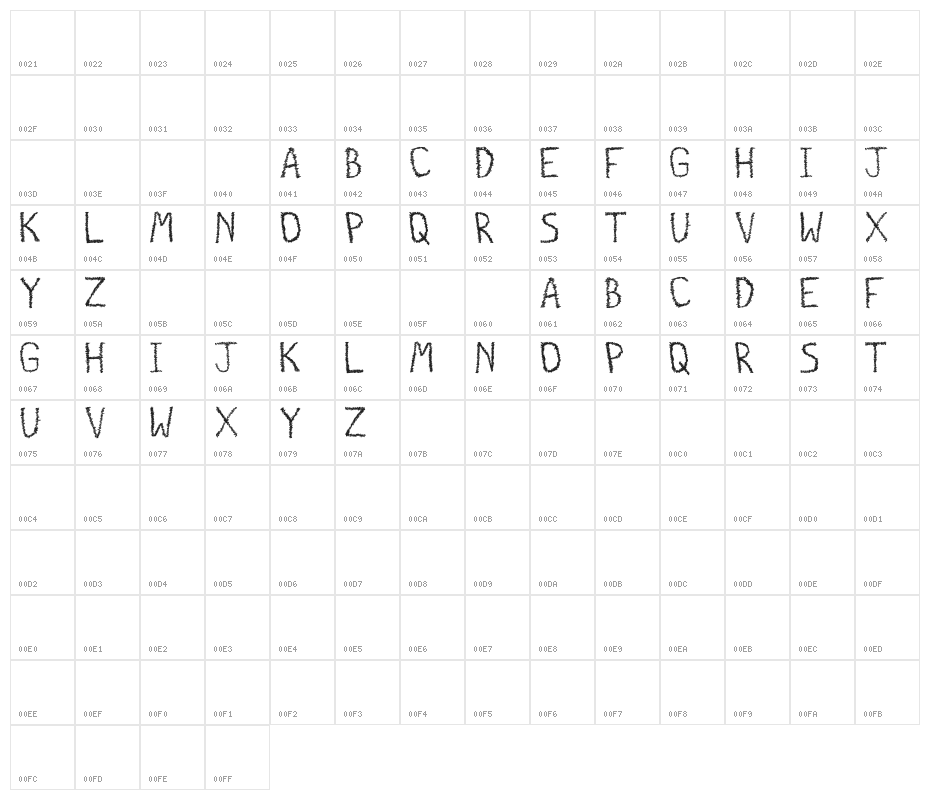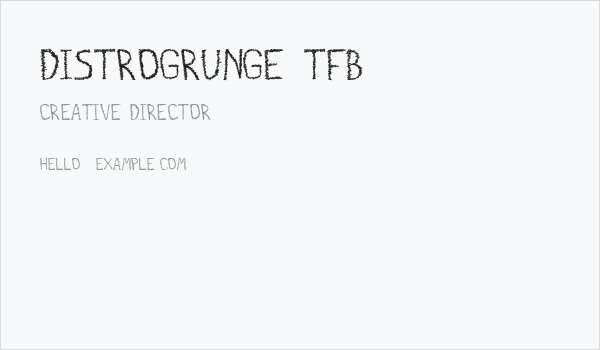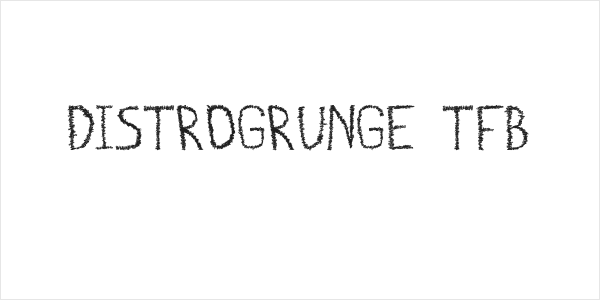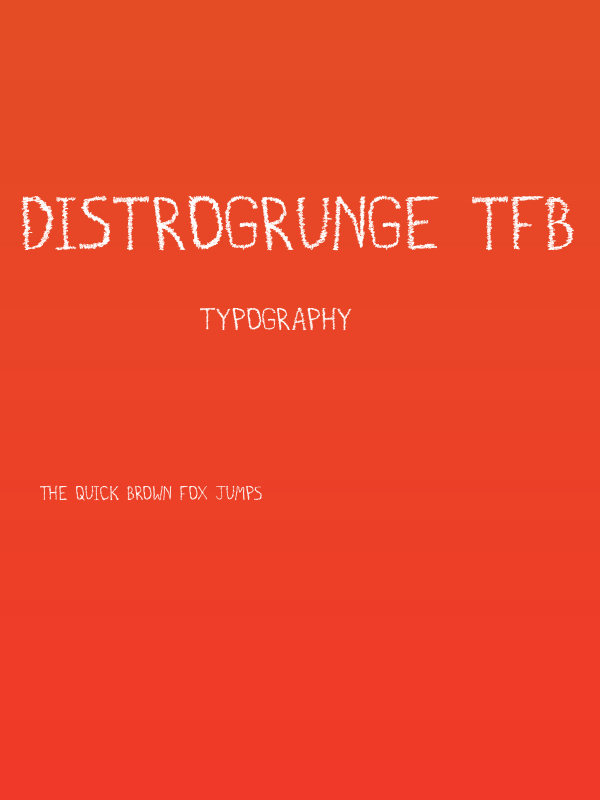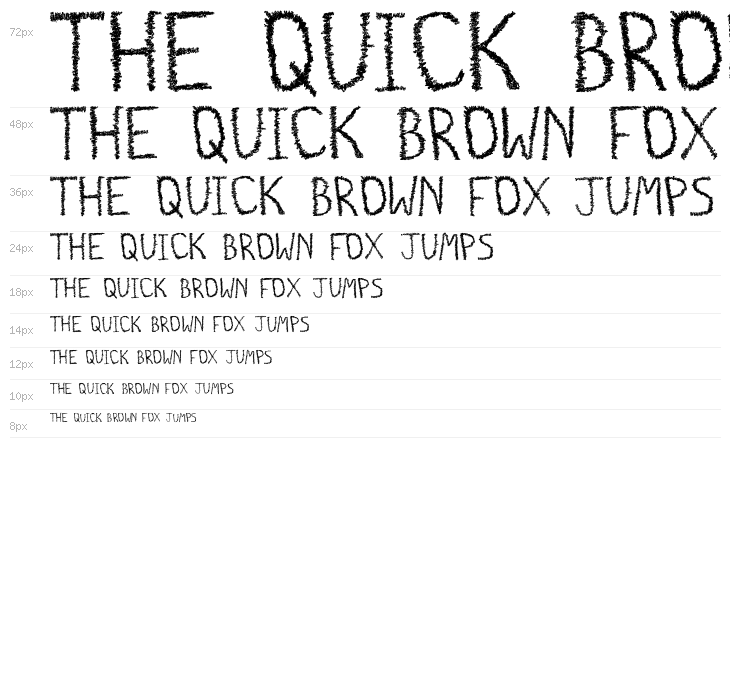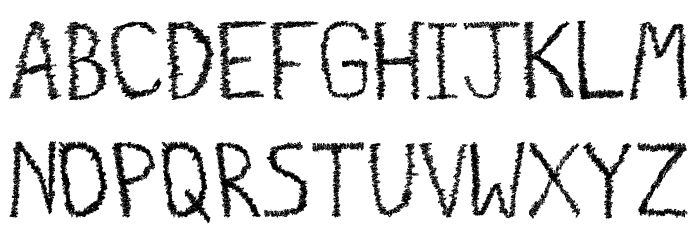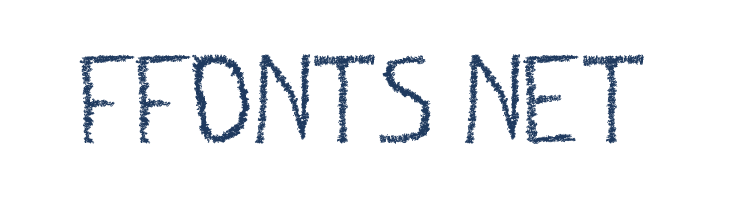
distrogrunge tfb Font
This font features a rugged, distressed appearance, characterized by uneven, jagged edges that give it a grunge aesthetic. The letters are bold and slightly irregular, adding to the chaotic and edgy feel. Each character seems to have been sketched with a rough hand, creating a sense of movement and energy. The uppercase and lowercase letters maintain a consistent style, with a uniform height and width that ensures readability despite the distressed look. The numbers and special characters follow the same design principles, making the font versatile for various uses. Its unique style makes it ideal for projects that require a bold, rebellious touch.
| Overall Style | Grunge, Edgy |
| Proposed Projects | Ideal for album covers, posters, streetwear branding, and edgy graphic designs. |